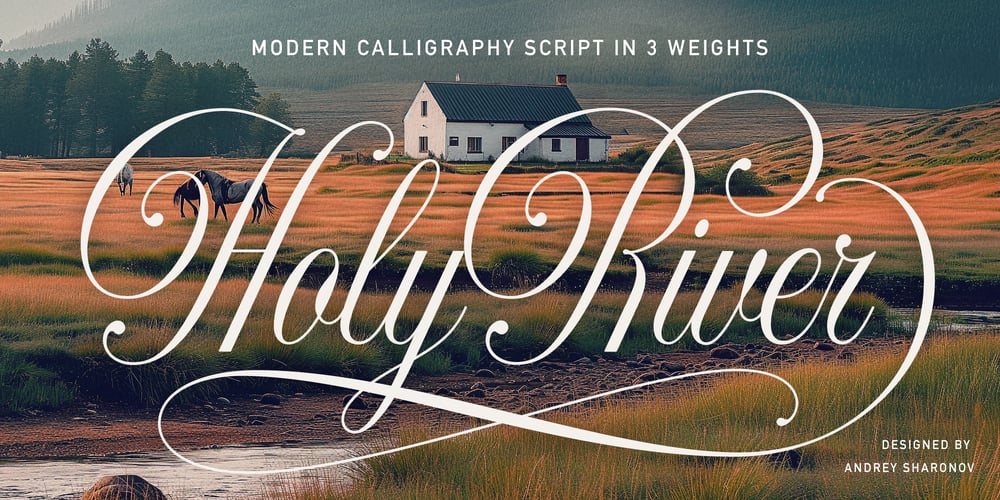
Holy River
Holy River font
Holy River Font Family was designed by Andrey Sharonov and published by Andrey Sharonov. Holy River contains 3 styles and family package options. Holy River is a modern calligraphy script, full of romance, grace and freedom.On one hand, it can be restrained, on the other, it can shine with luxury. It all depends on how much you use Stylistic Alternates and Swashes.This script font is quite slim but offers three weight options to broaden its usage. The thinnest Light is good in large sizes, while conversely, Medium is better suited for the small lines.Holy River is perfect for movie posters, wedding invitations, fashion magazines, romantic cards, alcohol labels, branding, logo design, spelling of names, and others.Stylistic AlternatesThis font has a total of 115 Alternates and Swashes. They work on the principle of simple combinations with activated Standard Ligatures option in Opentype panel (Adobe Photoshop, Adobe Illustrator). Stylistic Alternates: add 2, 3, 4 etc after letter (for example: A2, D3, M4, P3, b2, f4, g5, l3, p4)End-letters: add Plus (+) after letters (a, d, e, h, I, k, l, m, n, r, t, x, z)Shorter Ascender/Descenders: add Zero (0) after letters (b, d, f, g, h, j, k, l, p, q, t, y)Underline Swash: add Underscore + Number from 1 to 10, for example: __1 _2 __3… _108-esque Swash: add Parenright + Number from 1 to 8, for example: )1 )2 )3… )8